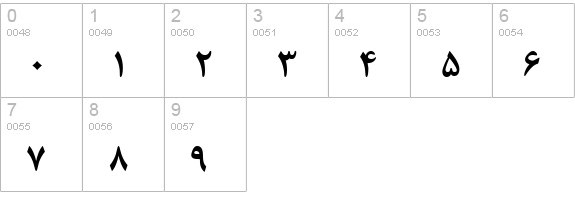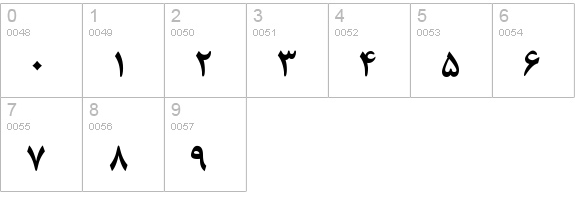
B Nazanin Bold Font Details
B Nazanin Bold is a strong, high-contrast variant in the B typeface family \xE2\x80\x94 well suited to headlines, attention-grabbing titles, and strong calls-to-action.
B Nazanin Bold is a striking and elegant font that demands attention with its bold and distinctive letterforms. This font exudes confidence and sophistication, making it perfect for headlines, titles, and other design projects that require a strong visual impact. The thick strokes and rounded edges of B Nazanin Bold give it a modern yet classic feel, making it versatile for a wide range of applications. What makes B Nazanin Bold even more appealing is that it is available for free download at FontsMarket.com. This means that you can easily access this high-quality font and use it in your projects without any cost. Whether you're a professional designer looking for a bold typeface to elevate your work or a hobbyist seeking a stylish font for personal projects, B Nazanin Bold is a fantastic choice that won't break the bank. Download it today and add a touch of bold sophistication to your designs!